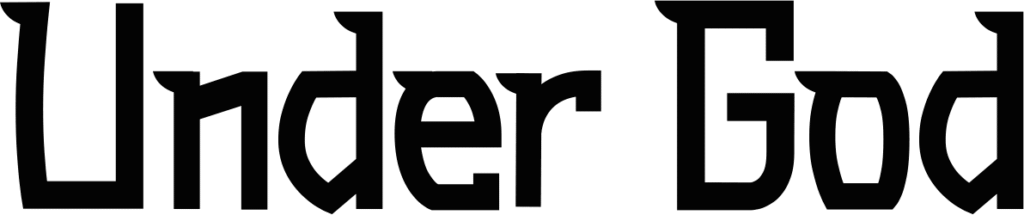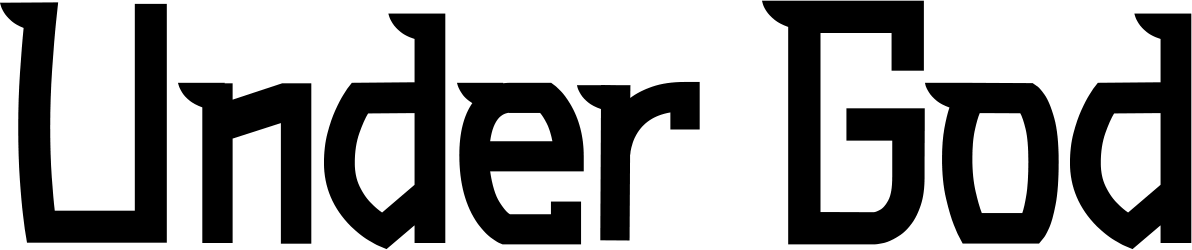
Undergod Font
Undergod is a specific gothic font that is modern, the bold characters are angled and have long ascenders with idiomatic edges. By utilizing this modern font your typography will be mischievous, with a medieval style that also looks aggressive with a vintage feel.
The letterforms Undergod contains are mixed case A to Z alphabets, a complete set of numbers, and punctuations. You might want to consider it for banners, magazines, logos, posters, movies, or games, and wherever you have in mind.